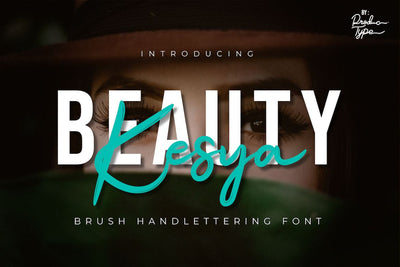
Beauty Kesya
Beauty Kesya is a casual and fashionable handwritten font. It looks trendy on a variety of design ideas, so add it confidently and level up your designs.
This font will turn any creative idea into a true piece of art, this font is perfect for strong text with displays for a wide variety of branding, advertising, posters, banners, packaging, headlines, outdoor activity, websites, logo design, and more.